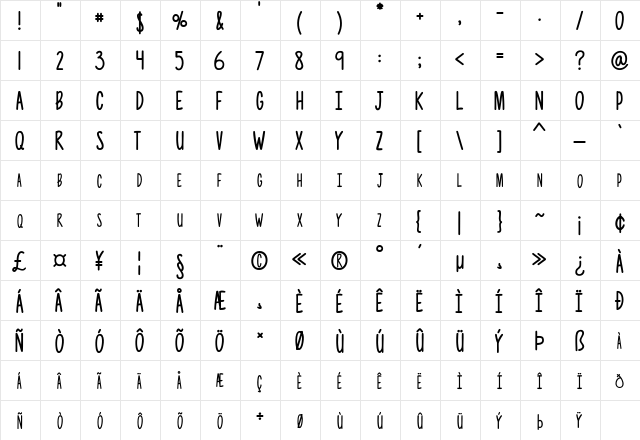
Photographs Regular
| Foundry | Brielle Lang |
| Designer | Brielle Lang |
Design Context for Photographs Typeface
Photographs offers clean, dependable letterforms without strong stylistic allegiance, making it a practical choice for designers who need flexibility.